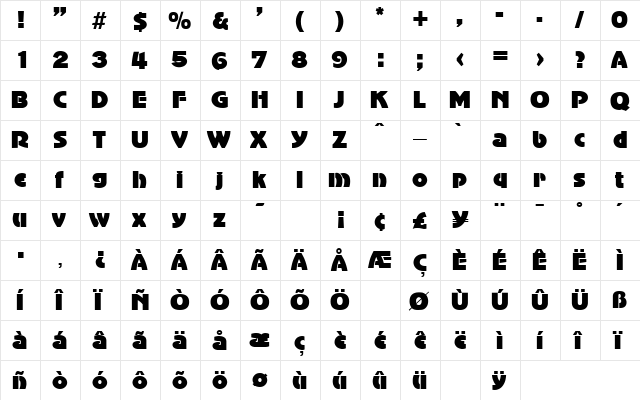
Adventurer Black SF Regular
Design Context for Adventurer Black SF Typeface
Adventurer Black SF takes a measured approach to typography — its balanced proportions and neutral character make it a reliable workhorse for both digital and print work.
Pro Tip: Use Adventurer Black SF in both headline and body roles to test its range before committing to a single application.